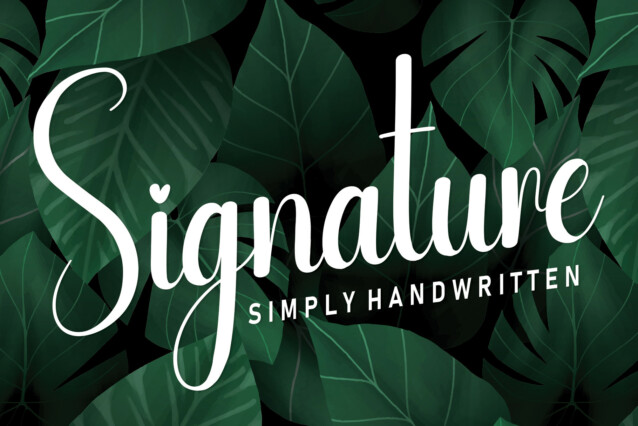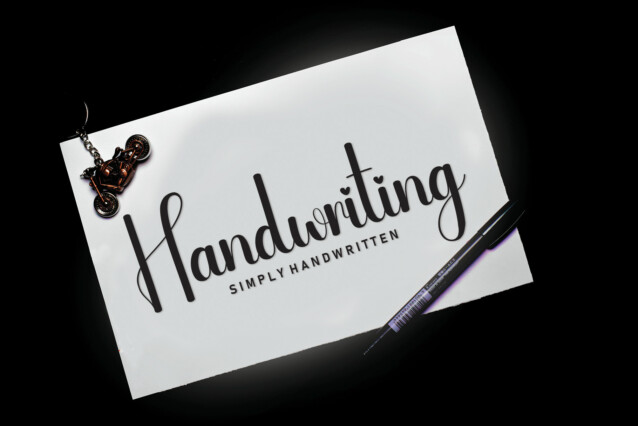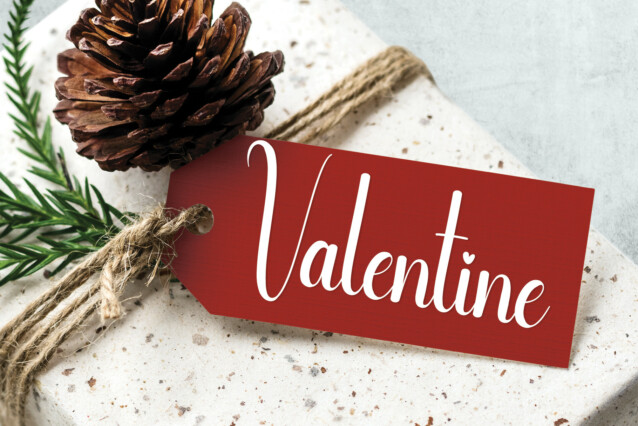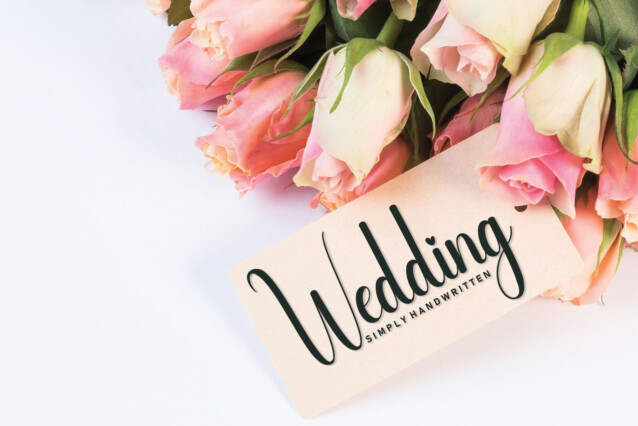
Dwelling House Script Font
Dwelling House Script Font feels equally charming and elegant. It looks stunning on wedding invitations, thank you cards, quotes, greeting cards, logos, business cards, and every other design which needs a handwritten touch.